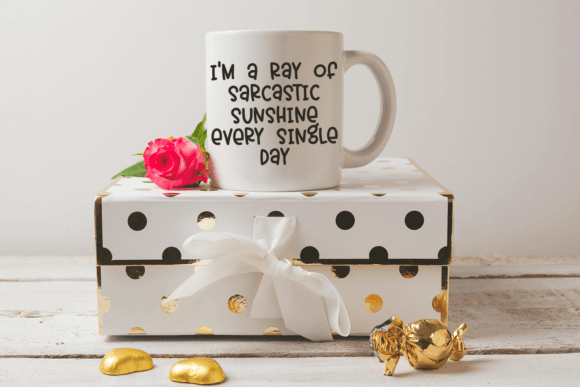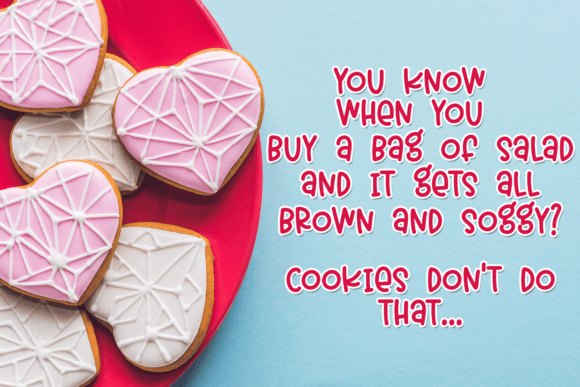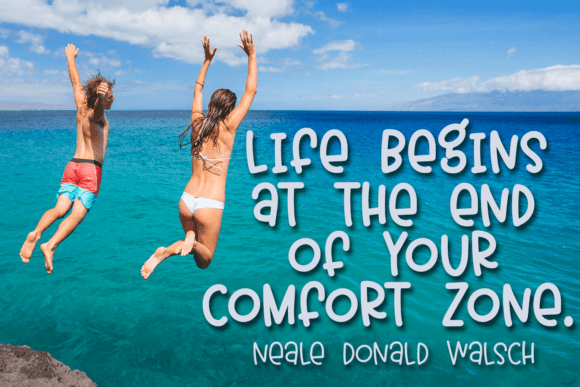
Introduction to Imaginary Friend Font
Imaginary Friend is a fun and friendly handwritten font.
Use it to turn any design idea into a true standout Get inspired by its unique charm and create lovely designs.
Key Features of Imaginary Friend Font